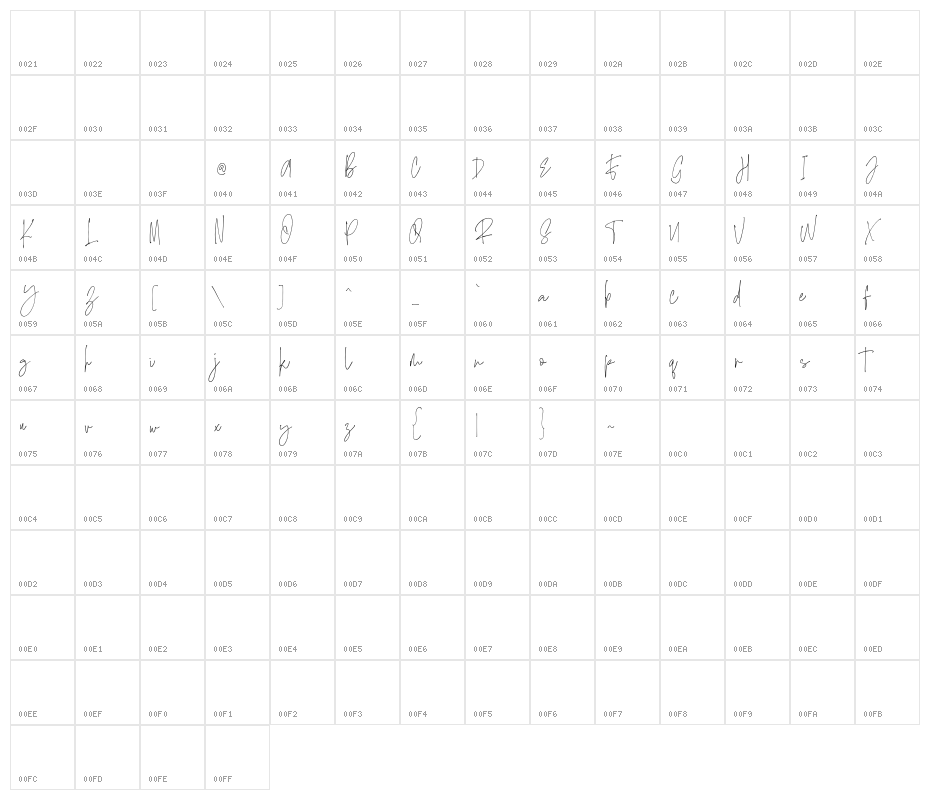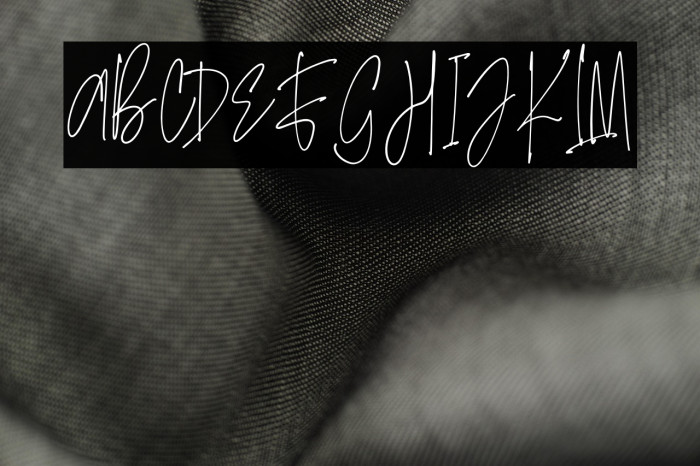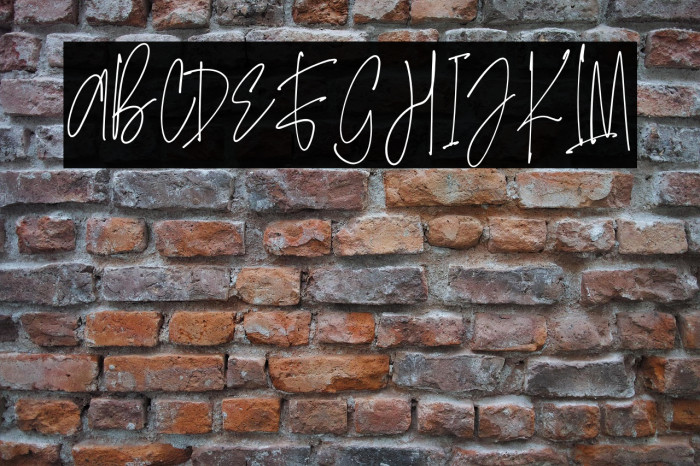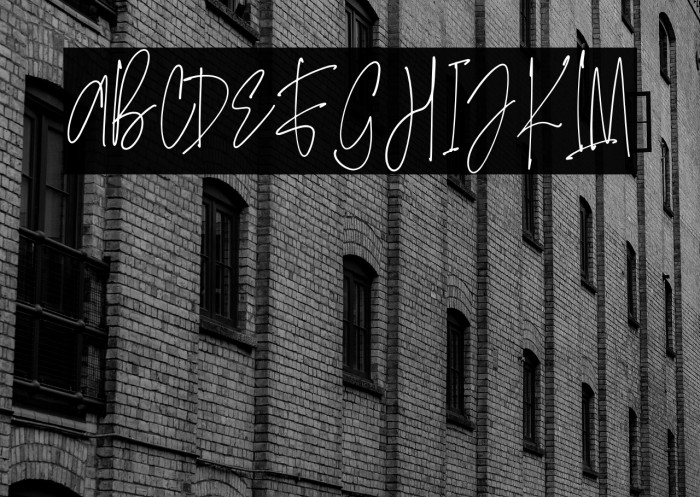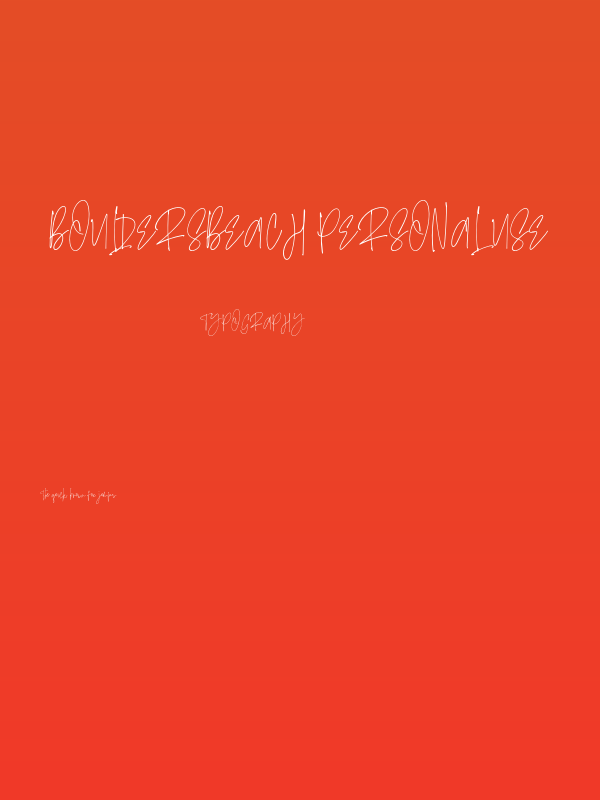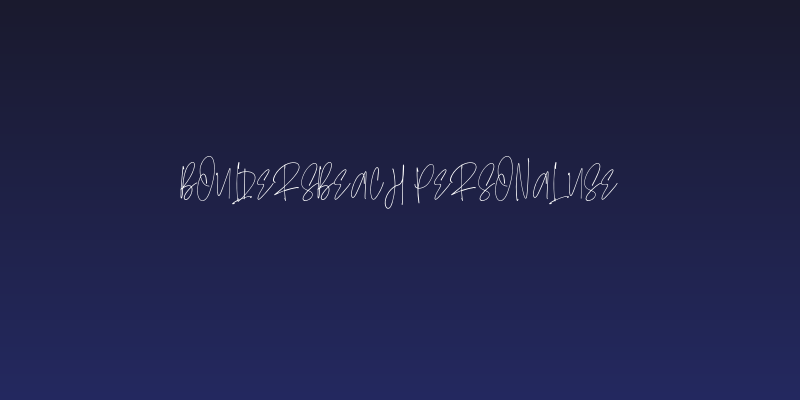
bouldersbeach Personal Use Font
bouldersbeach Personal Use Description
This font features a handwritten, cursive style with a playful and artistic flair. The letters are elongated and slightly slanted, giving it a dynamic and lively appearance. The strokes are thin and delicate, with a consistent flow that mimics natural handwriting. The uppercase letters are tall and narrow, while the lowercase letters maintain a more relaxed and casual form. This font exudes a sense of creativity and personal touch, making it ideal for projects that require a human element. The spacing between characters is moderate, allowing for readability while maintaining its artistic expression.
| Overall Style | Artistic |
| Proposed Projects | Ideal for greeting cards, personal branding, invitations, and artistic projects. |